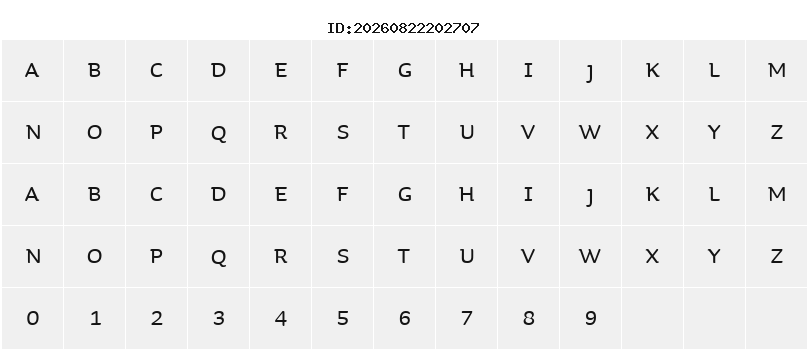
Sauna-SmallCaps.ttf is a modern, elegant sans-serif font designed for ultimate readability and visual harmony. Perfect for branding, headlines, web design, and print materials.